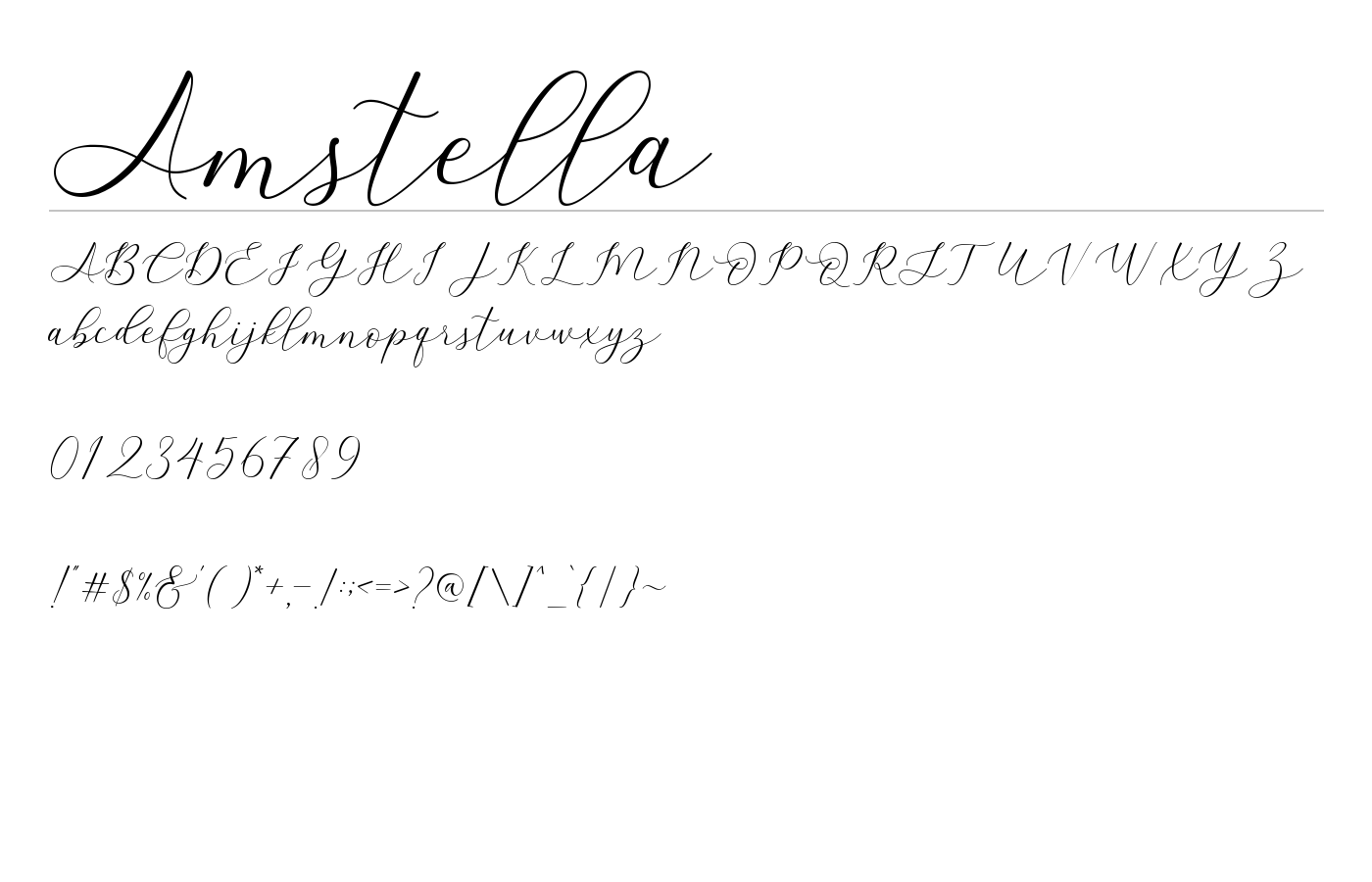
Amstella is an elegant script font characterized by its delicate, flowing strokes and fine, graceful lines that give it a sophisticated and luxurious feel. Its slender letterforms and refined curves make it perfect for high-end branding, wedding invitations, and editorial headlines where a touch of classic beauty and femininity is desired. This font works best in designs that aim to convey elegance and charm with a modern calligraphic style.
| Font family | Amstella Font |
| Designer | (MJB Letters). 2019. (Muhammad Mujibulloh) |